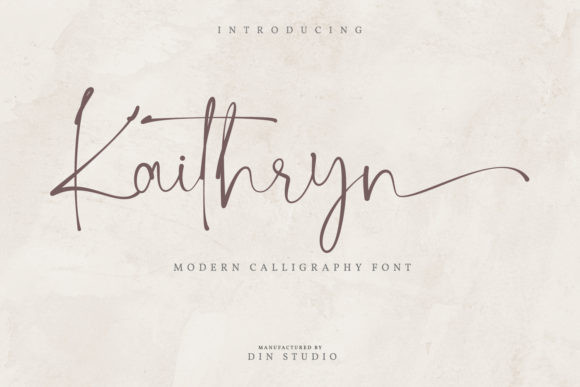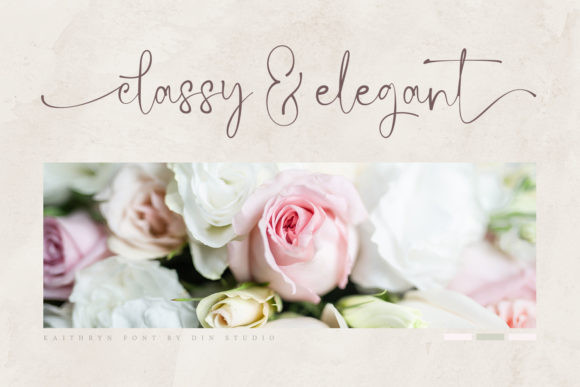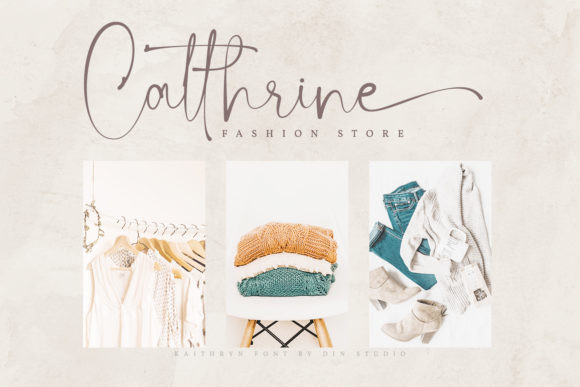
Kaithryn Font
Kaithryn is a modern calligraphy font, featuring a beautiful and attractive style. This font is PUA encoded which means you can access all of the glyphs and swashes with ease! Fall in love with its incredibly versatile style and use it to create spectacular designs!